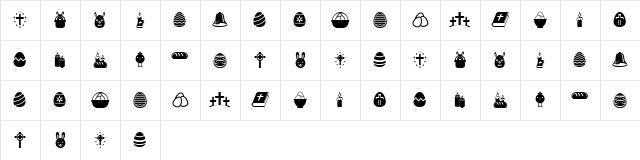
Easter Icons Regular Free Font
Easter Icons Regular
Design Context for Easter Icons
Easter Icons is a composed and adaptable typeface that performs quietly and consistently across a wide range of design contexts.